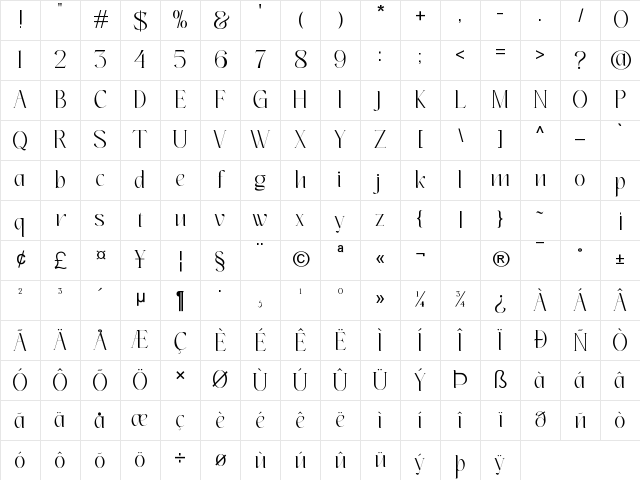
Complete Mictons Regular glyph index. Displaying only characters natively supported by Mictons Regular font.
Mictons is a composed and adaptable typeface that performs quietly and consistently across a wide range of design contexts.